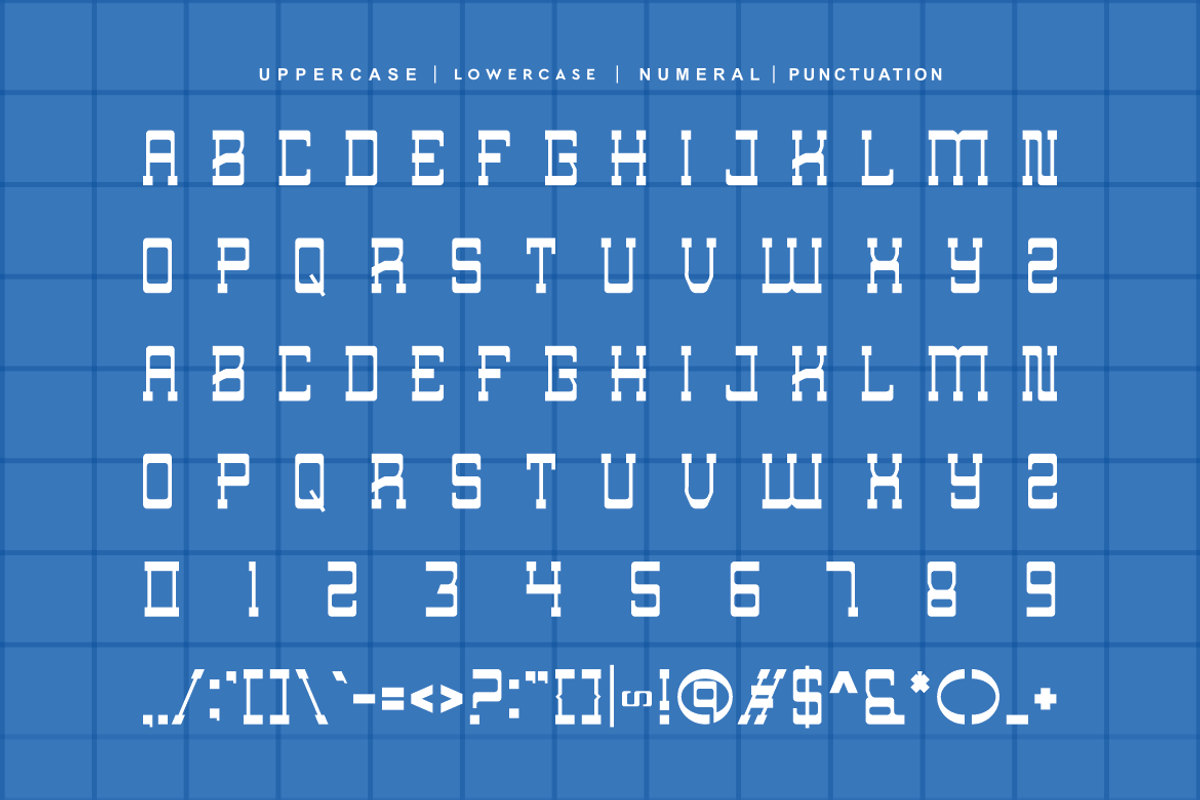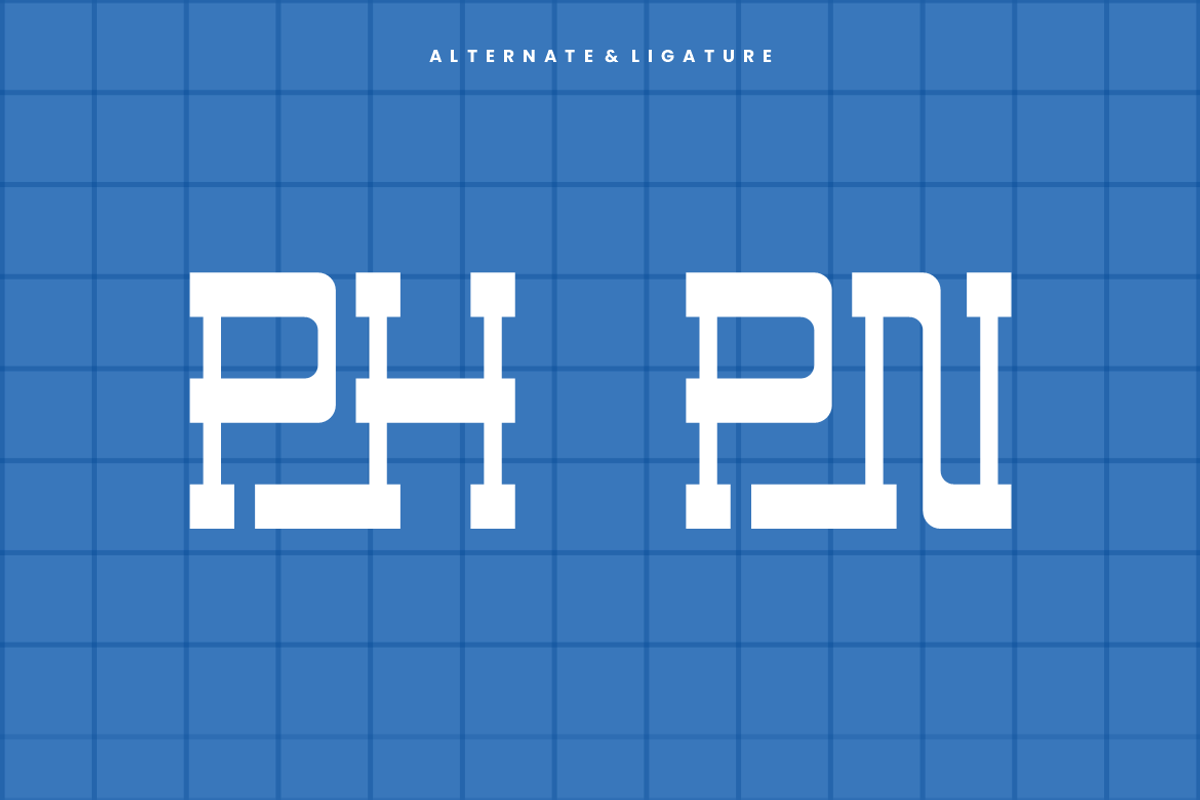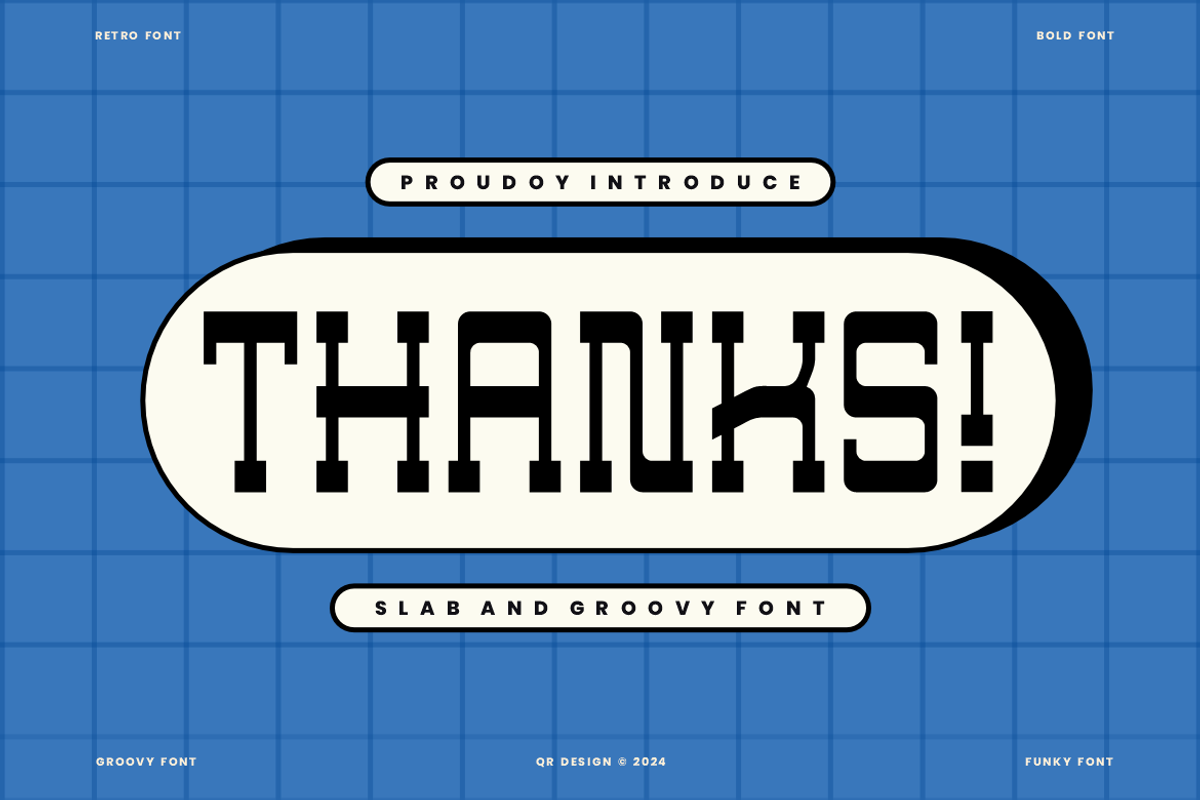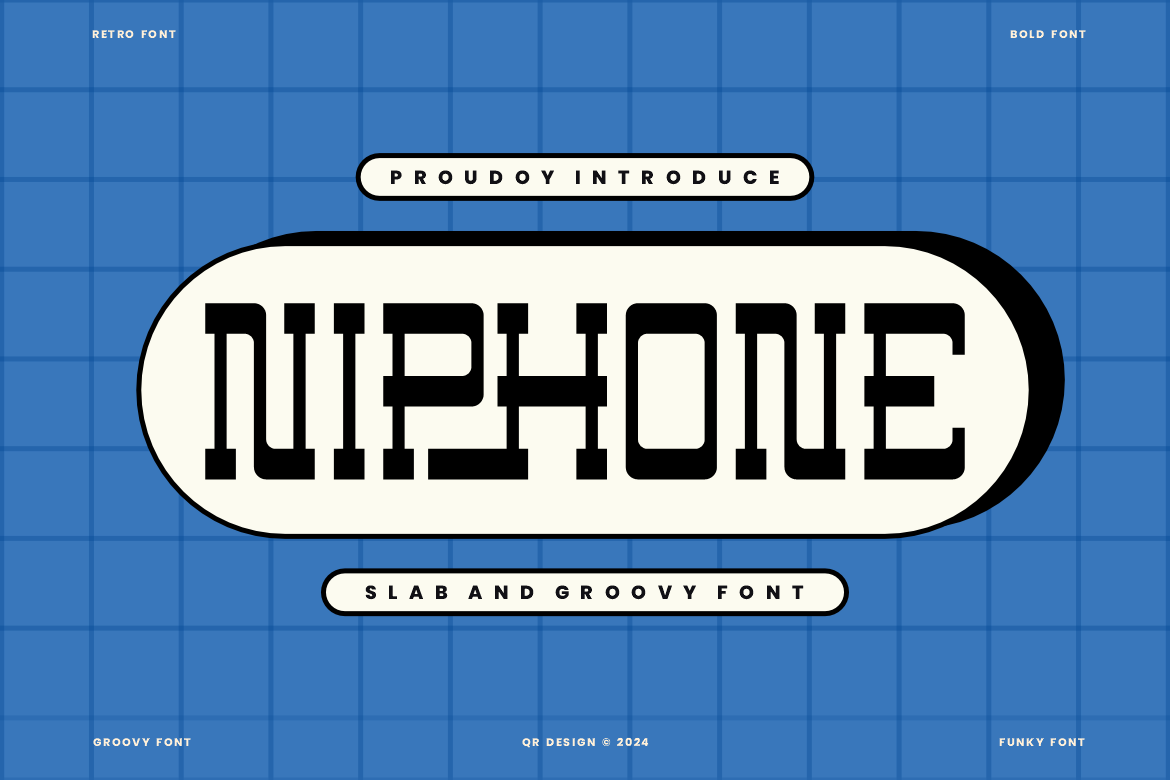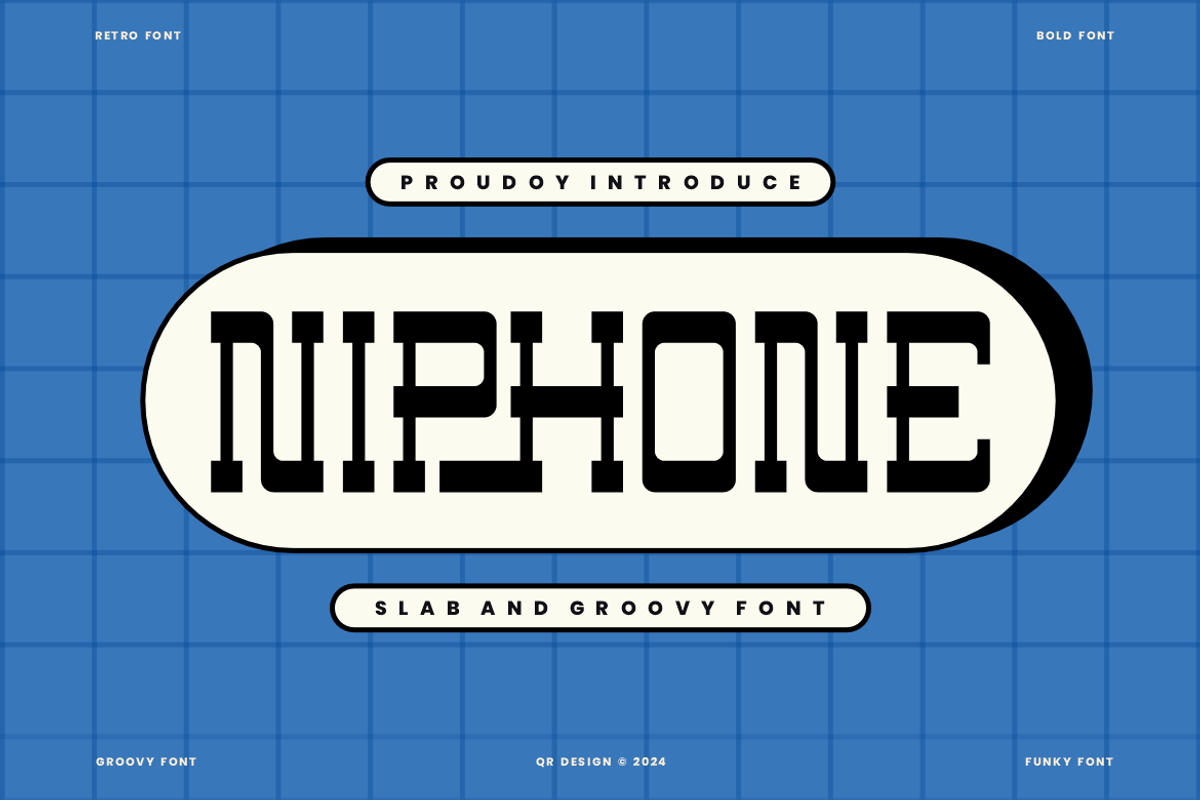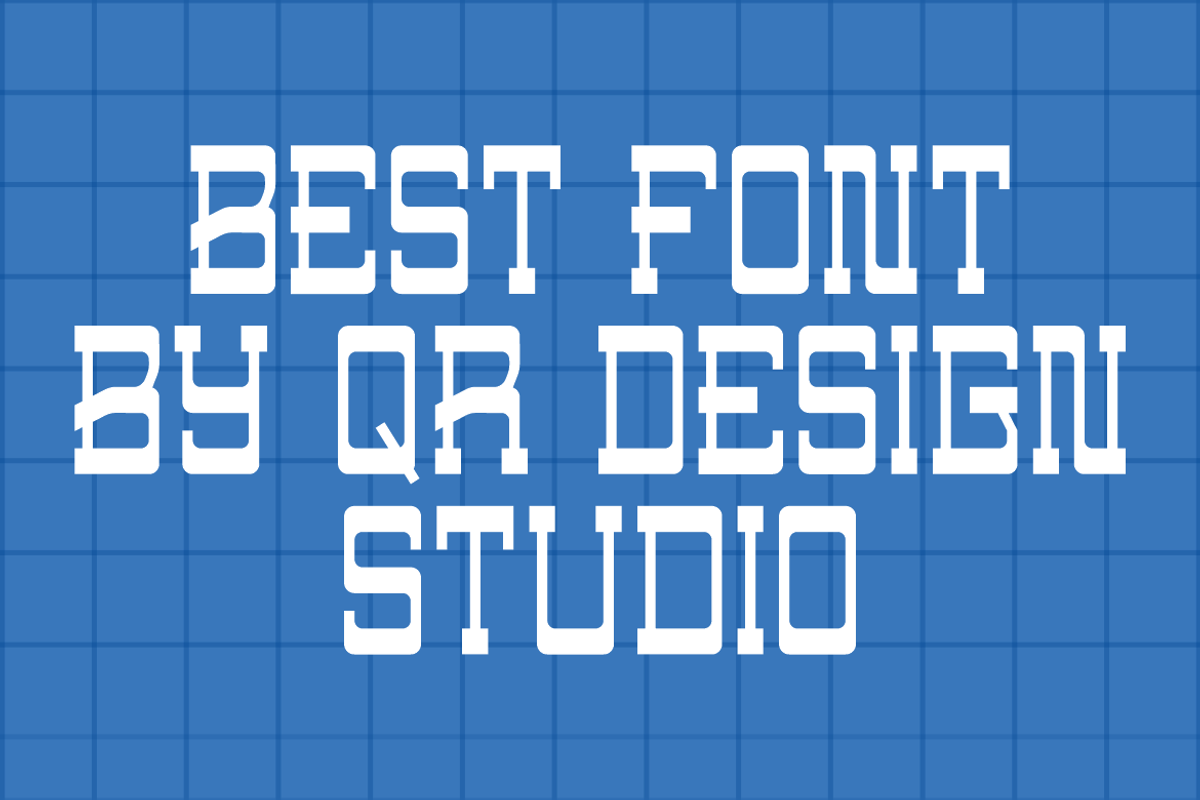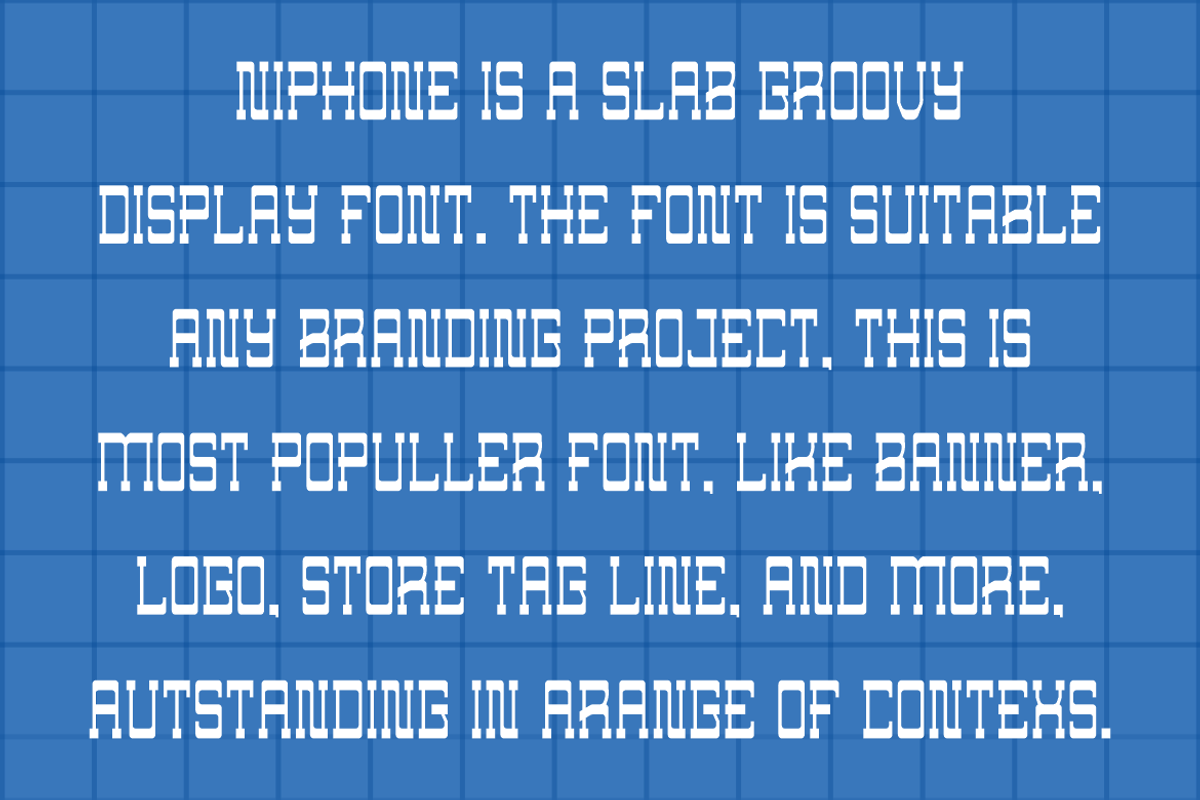
Niphone - Retro Font
Niphone - Slab Font is a bold and authentic display font. The font is suitable for any branding project like poster, logo, sport, and many more. Outstanding in a wide range of contexts.